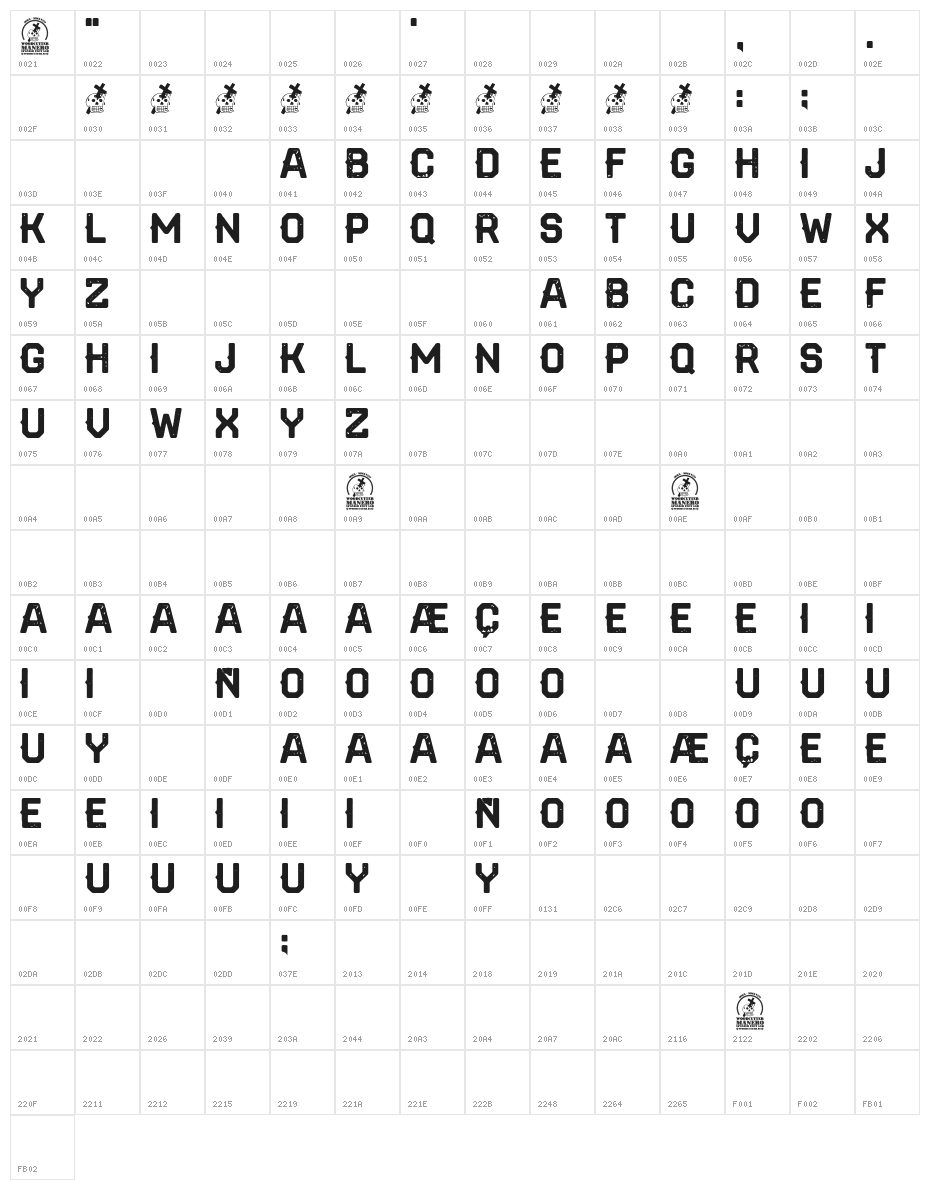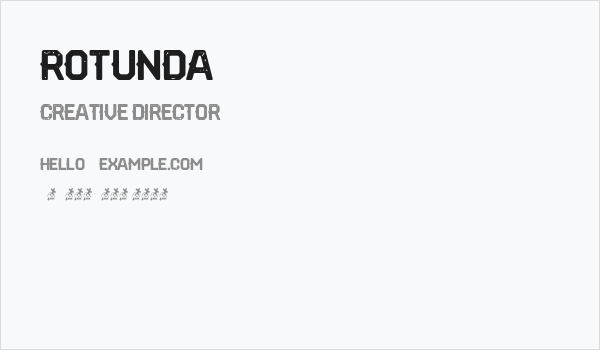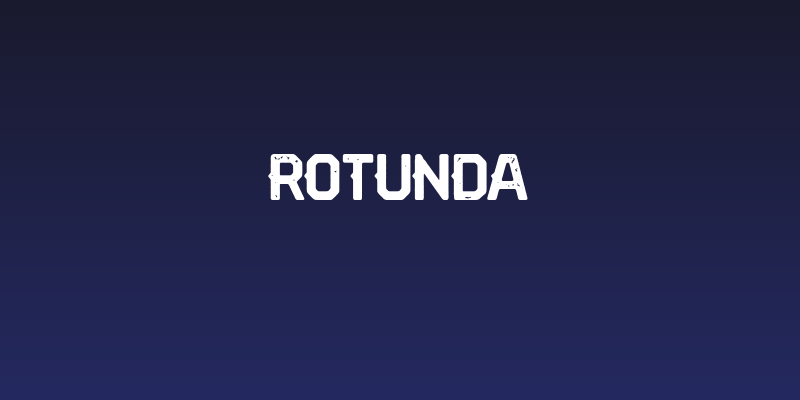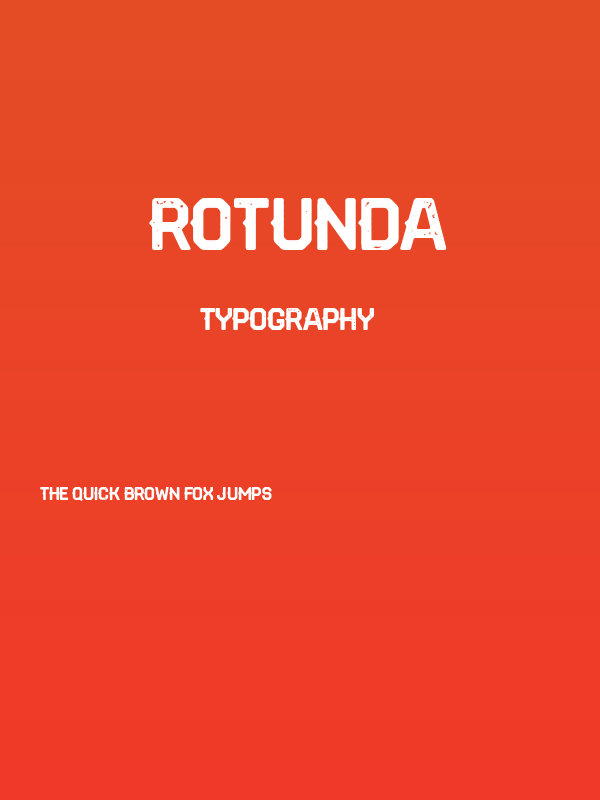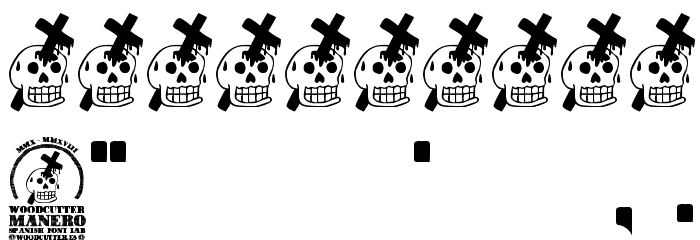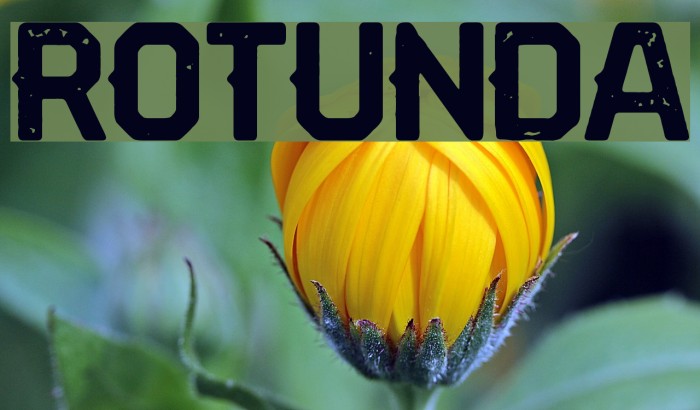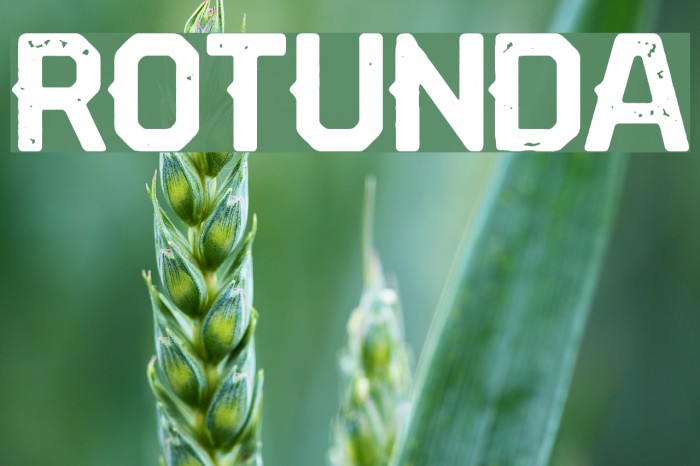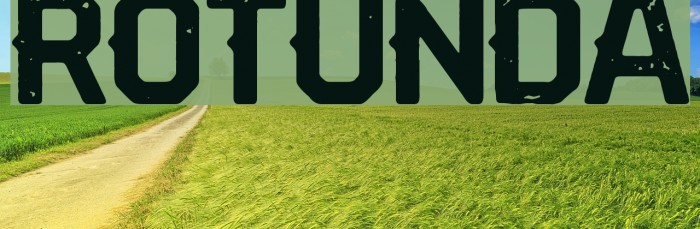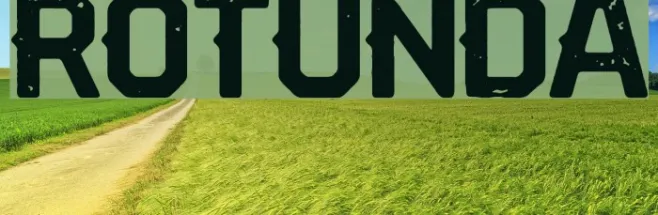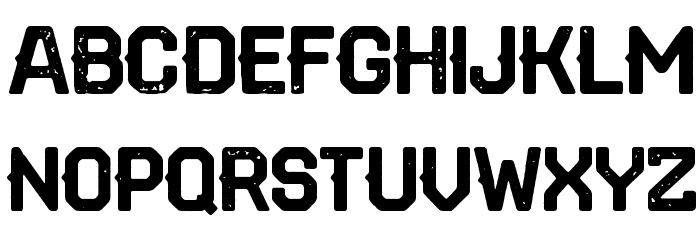
Rotunda Font
Rotunda Description
This font features a bold and rugged design with a distressed texture that gives it a vintage, worn-out appearance. The characters are uppercase and display a blocky, geometric style with sharp edges and a uniform thickness throughout. The font's unique texture adds a sense of depth and character, making it stand out in any design. It is particularly suitable for projects that aim to convey a sense of nostalgia or a rustic, handcrafted feel. The font's boldness ensures it remains legible even at smaller sizes, while the textured details add visual interest.
| Proposed Projects | Ideal for vintage-themed posters, logos, branding, and packaging designs that require a bold, eye-catching typeface. |